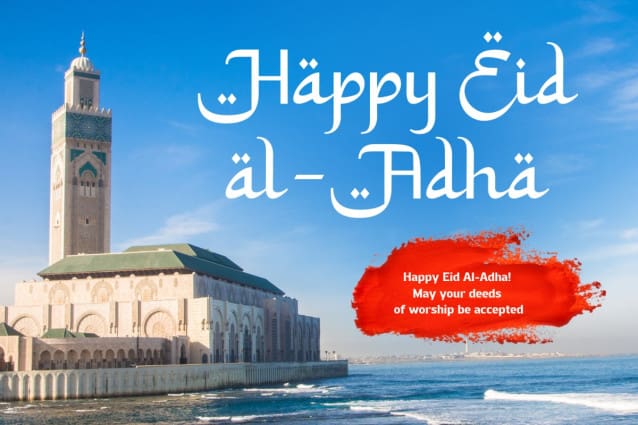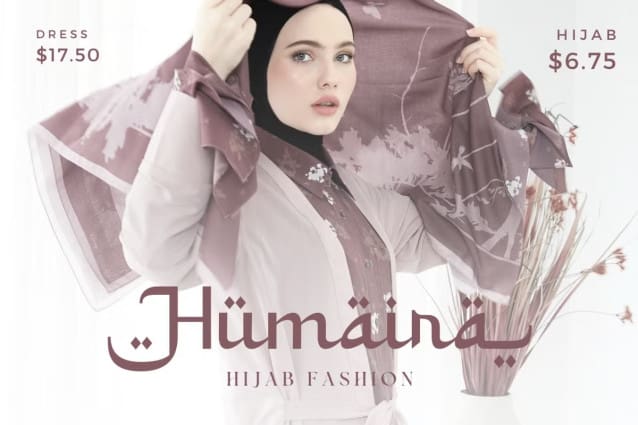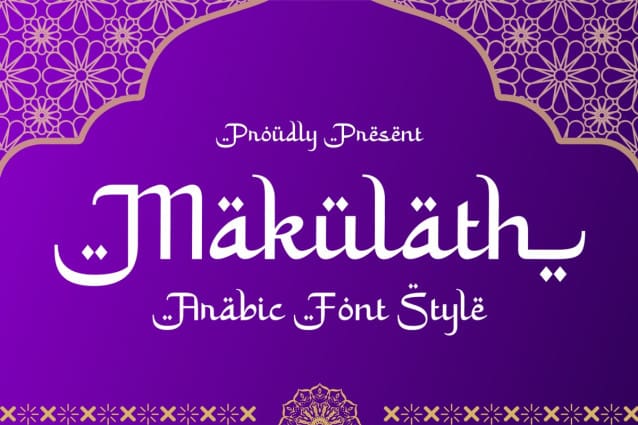
Makulath Arabic Font
Makulath Arabic Font, an elegant Arabic script font that exudes the beauty and grace of the Arabic language. With its intricate strokes and flowing lines, this font captures the essence of Arabic calligraphy. Perfect for projects that celebrate the richness of Arabic culture, such as invitations, posters, or branding materials, “Makulath” adds a touch of sophistication and authenticity to your designs, enhancing them with the timeless allure of Arabic script.